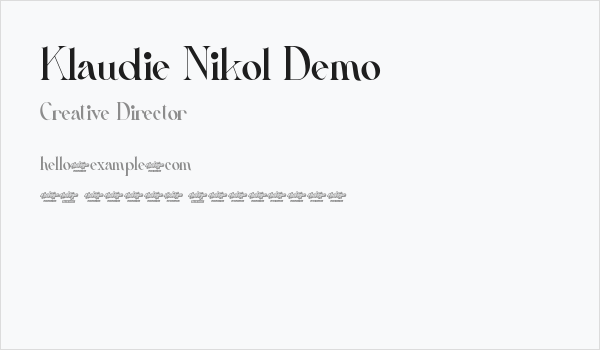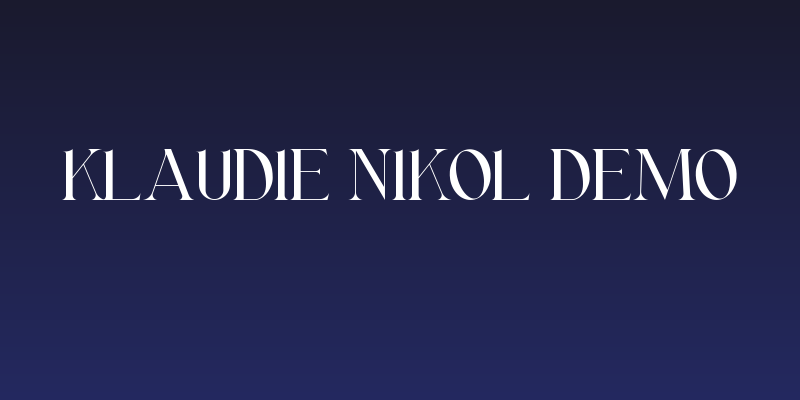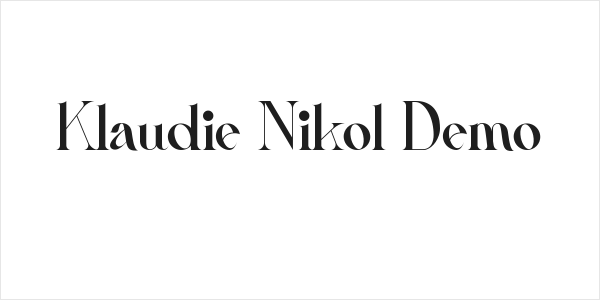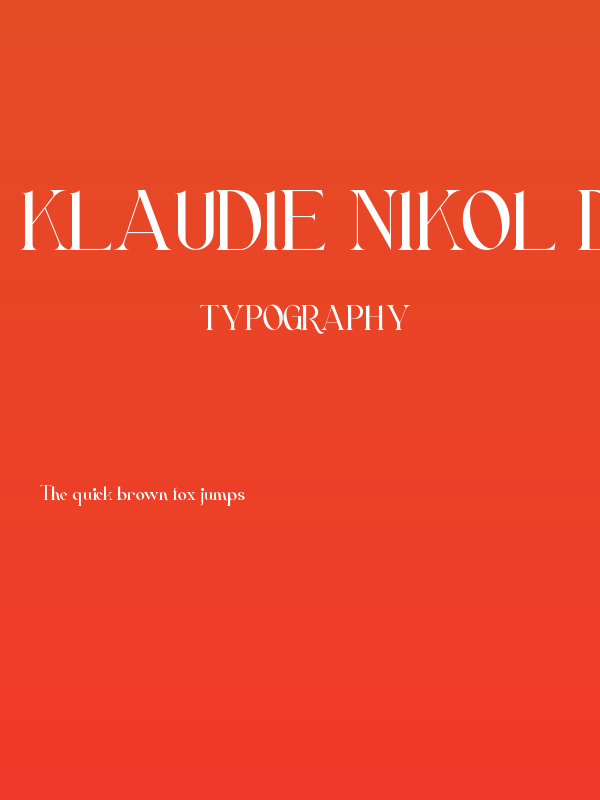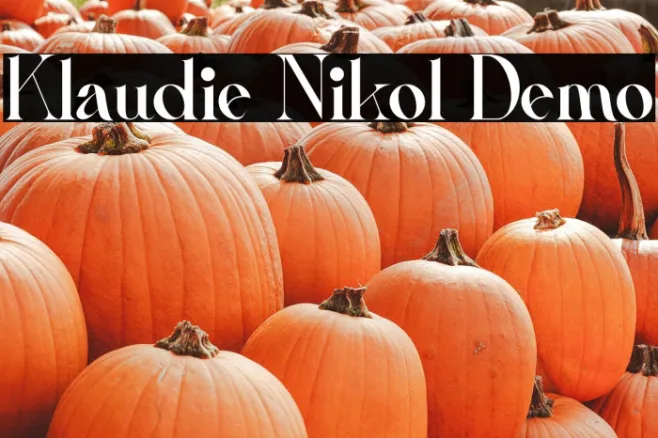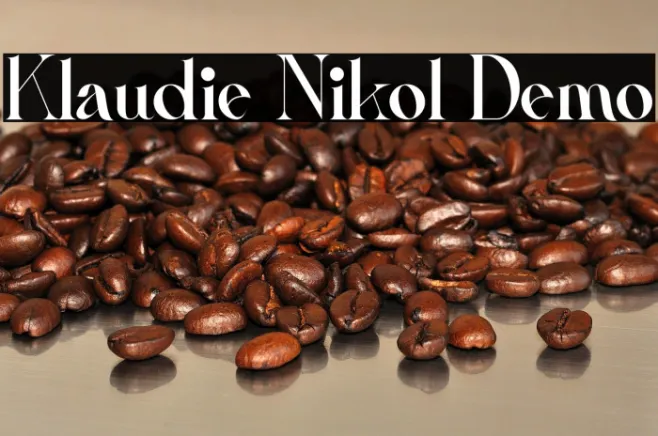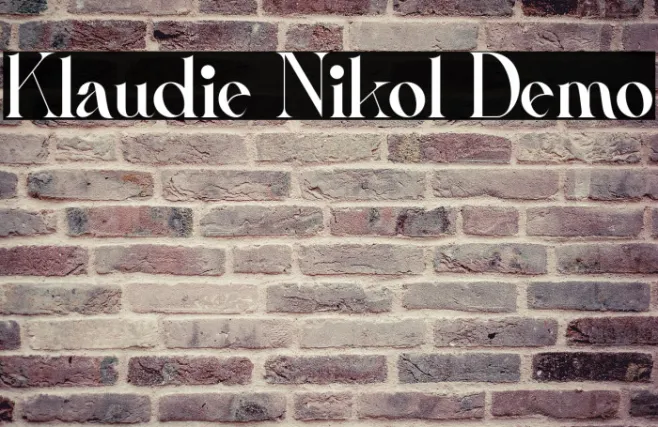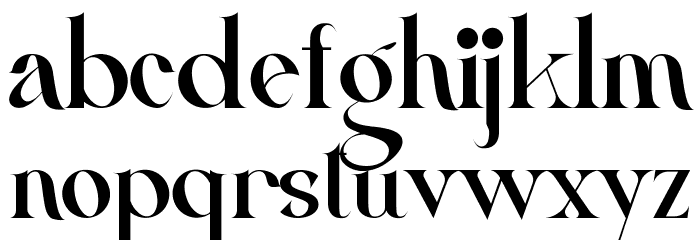
Klaudie Nikol Demo Font
| Gesamtstil | Modern, Classic |
| Anwendungsfall | Headlines, Logos, Editorial Design |
| Vorgeschlagene Projekte | Ideal for branding, editorial design, luxury product packaging, and artistic posters. |